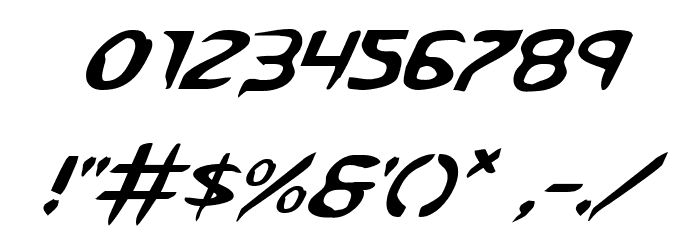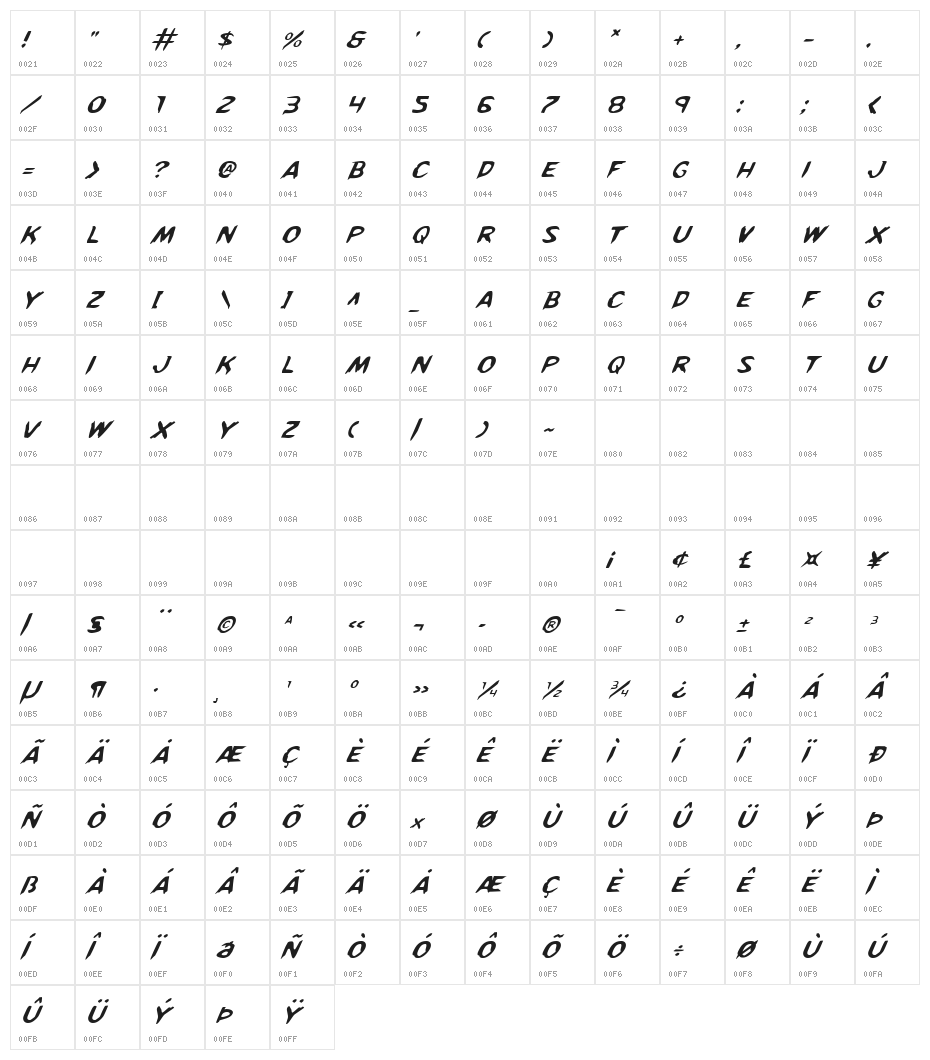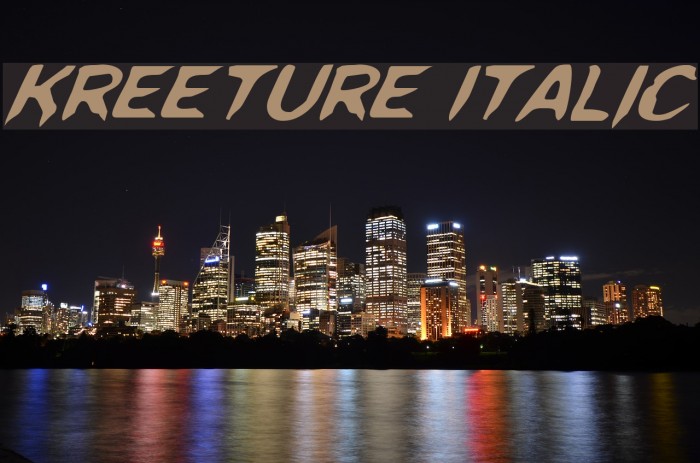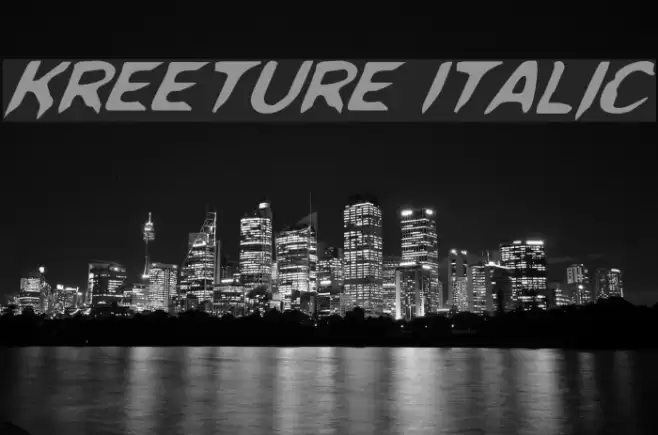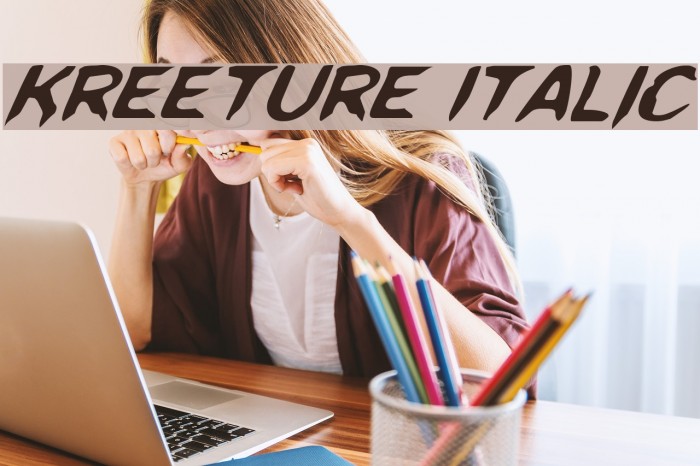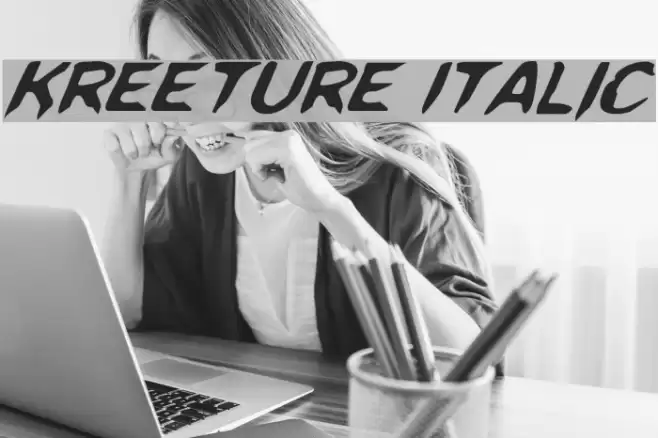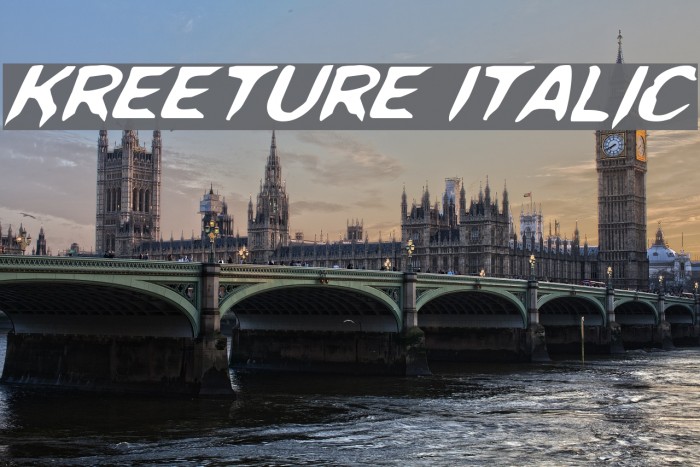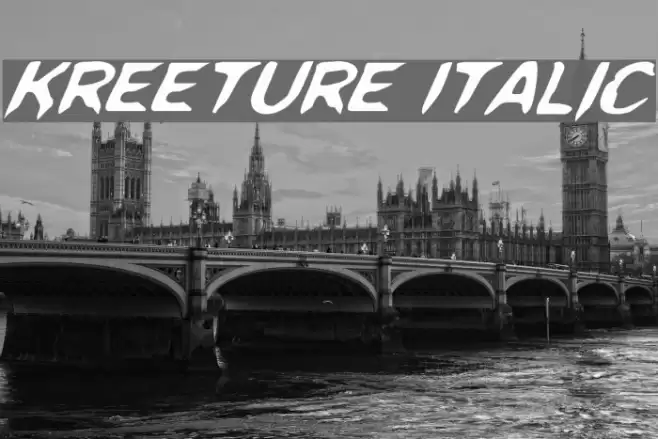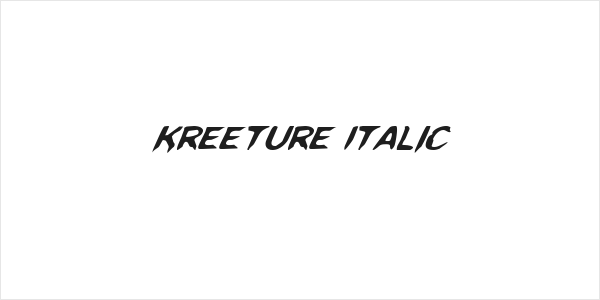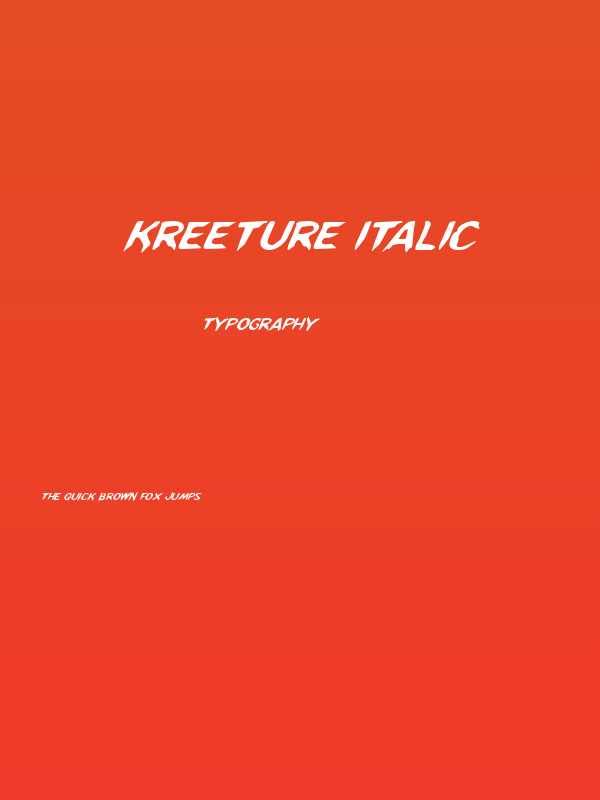
Kreeture Italic Font
Kreeture Italic Description
This font features a bold, italicized style with sharp, angular edges and a dynamic, energetic appearance. The characters exhibit a sense of movement and fluidity, reminiscent of brush strokes or graffiti art. The uppercase and lowercase letters maintain a consistent slant, enhancing the italic effect. The numbers and special characters follow the same stylistic cues, ensuring uniformity across all glyphs. The overall design is striking and attention-grabbing, suitable for projects that require a bold statement.
| Proposed Projects | Ideal for use in posters, logos, branding, and any design that requires a bold, eye-catching typeface. |